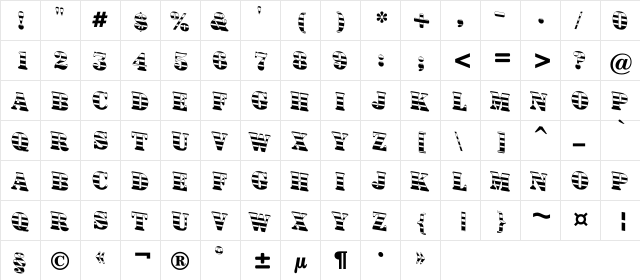
a_SignboardTitulGrdDn Regular
Design Context for a_SignboardTitulGrdDn Typeface
a_SignboardTitulGrdDn is a composed and adaptable typeface that performs quietly and consistently across a wide range of design contexts.